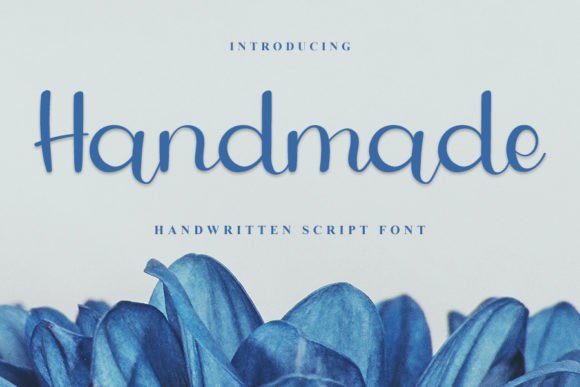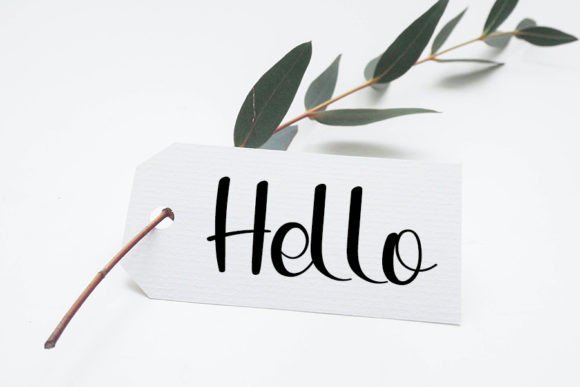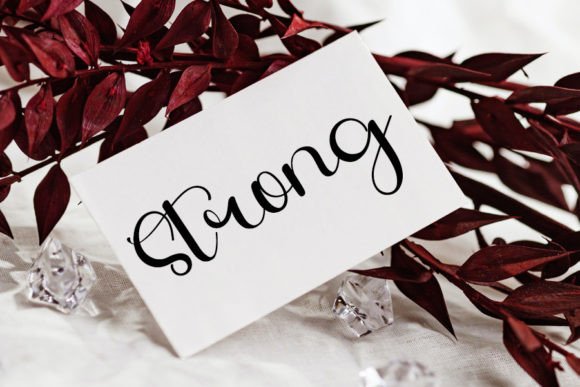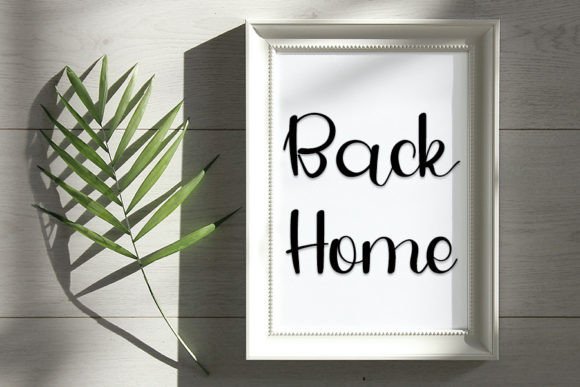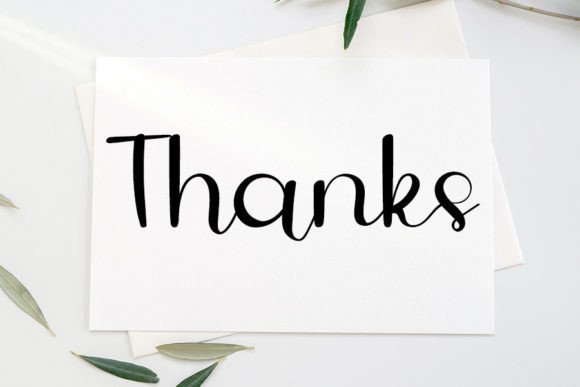
Handmade font is a neat and beautiful handwritten typeface designed with elegance and simplicity in mind. This font captures the authentic feel of hand lettering while offering a refined style that enhances your creative projects. Whether you’re designing logos, invitations, branding materials, or social media content, Handmade font delivers a distinct and timeless look that stands out.
Elegant and Authentic Handwritten Style
The main appeal of Handmade font lies in its elegant, handwritten style. It reflects the natural imperfections and fluidity of real handwriting, which adds a personal and human touch to your designs. Each character flows smoothly with well-balanced strokes, making the font highly readable and visually pleasing.
Its simplicity ensures versatility, so Handmadefont can complement a wide range of themes—from minimalistic and modern designs to rustic and vintage styles. This makes it an ideal choice for creatives looking for a font that combines personality with sophistication.
Versatile Applications of Handmade Font
Handmadefont works beautifully across many types of projects. Its elegance and charm fit perfectly with both digital and print media. Here are some common uses for this font:
• Logos and Branding: Create authentic and memorable brand identities that convey warmth and trust.
• Wedding Invitations: Add a personal and elegant touch to your wedding stationery, from invitations to thank-you cards.
• Social Media Graphics: Enhance your posts and stories with a unique handwritten flair that engages viewers.
• Product Packaging: Give your packaging a handcrafted feel that appeals to customers looking for authenticity.
• Greeting Cards and Posters: Make every message feel heartfelt and special with this stylish font.
Why Choose Handmade Font?
Choosing Handmadefont means adding a timeless, elegant handwritten typeface to your design toolkit. It combines readability with style, allowing you to create projects that feel both professional and personal. Moreover, Handmadefont pairs well with other fonts, giving you flexibility in creating layered, visually dynamic designs.
Its neat design and balanced proportions make it ideal for a variety of creative applications. Whether you’re a designer, entrepreneur, or hobbyist, Handmadefont helps your work stand out with grace and authenticity.
Final Thoughts on Handmade Font
In summary, Handmadefont is a versatile and elegant handwritten typeface that adds a unique, personal touch to your projects. Its clean, timeless style enhances logos, invitations, social media content, and much more. Add Handmadefont to your collection and discover how it can transform your creative ideas into spectacular designs.